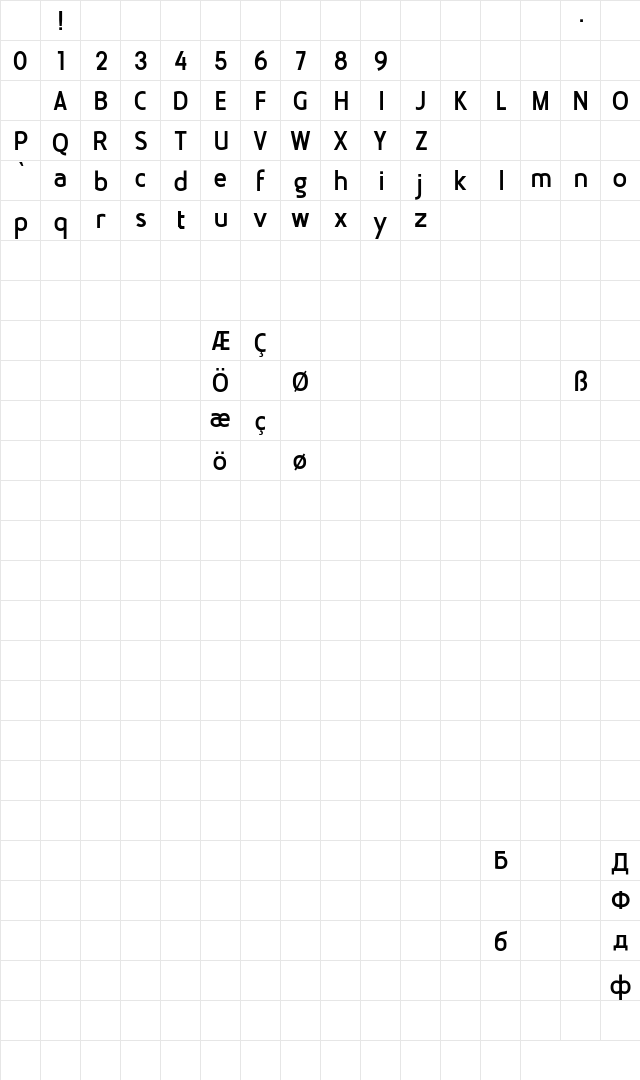
Complete Bloomsburg Regular glyph index. Displaying only characters natively supported by Bloomsburg Regular font.
Bloomsburg is a composed and adaptable typeface that performs quietly and consistently across a wide range of design contexts.